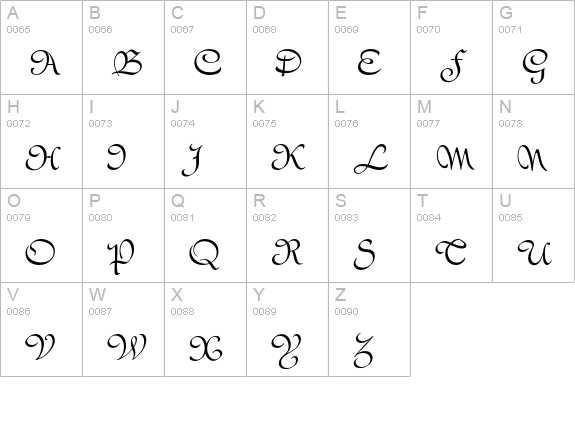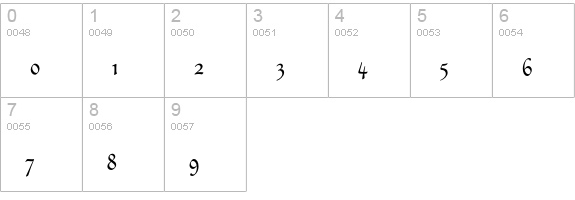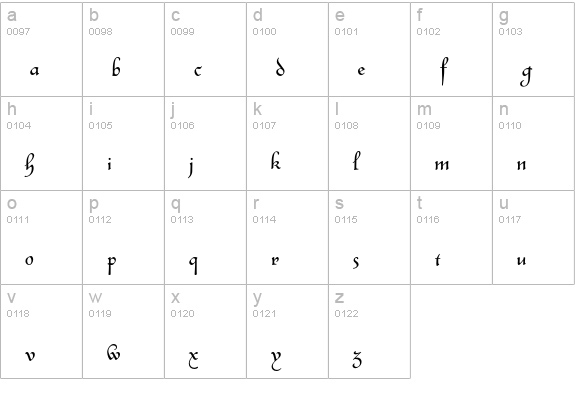
Civitype Font Details
Civitype font is a modern and versatile typeface that strikes the perfect balance between elegance and functionality. Its clean lines and contemporary style make it ideal for a wide range of design projects, from branding to editorial layouts. The Civitype font features a unique blend of classic and modern elements, making it suitable for both traditional and cutting-edge designs. What sets Civitype apart is its exceptional readability and versatility, making it a go-to choice for designers looking to make a statement with their typography. Whether you're creating a sleek corporate identity or a stylish poster, Civitype has got you covered. Best of all, Civitype font is available for free download at FontsMarket.com, allowing designers to access this premium typeface without breaking the bank. Don't miss out on the opportunity to elevate your designs with the sophisticated charm of Civitype font. Download it today and see the difference it can make in your projects!